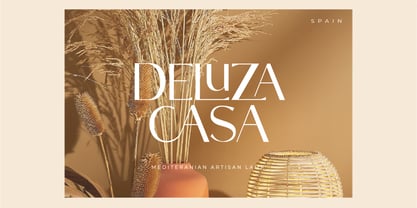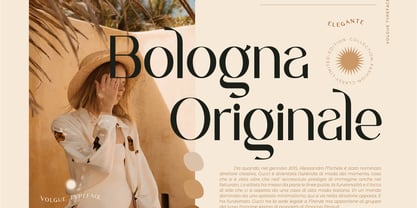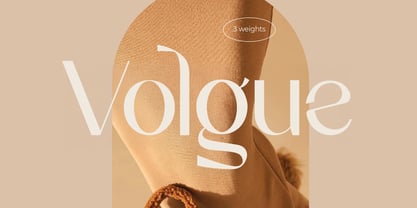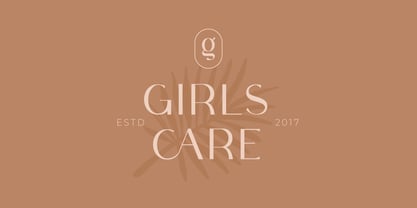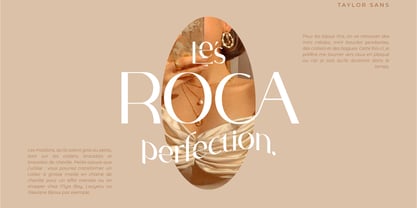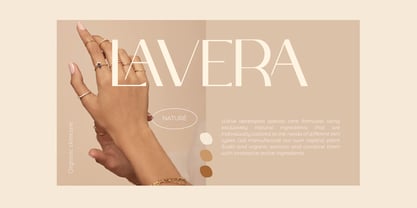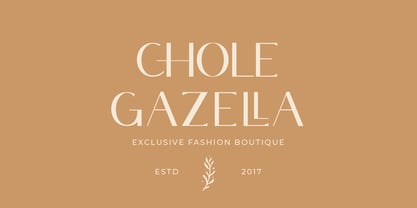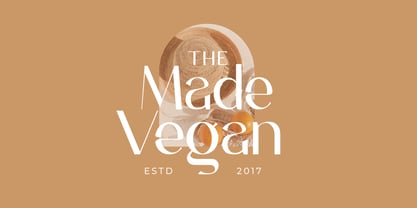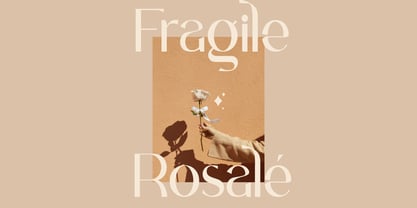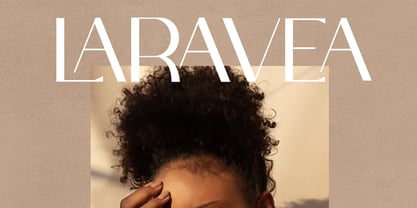
CCS Volgue
La famille de polices CCS Volgue a été conçue par Kurt Harahap et publiée par Creative Corner Studio. CCS Volgue contient 3 styles et options de package familial. En savoir plus sur cette famille
Volgue is a classic modern font that combines style and uniqueness, featuring smooth curves and exquisite ligatures. With a wealth of special alternative glyphs, ornamental designs, and multilingual support, this font is incredibly versatile. It performs exceptionally well in both large and small sizes, making it ideal for a variety of applications. Volgue is perfect for branding projects, logo design, clothing branding, product packaging, magazine headers, or as a chic text overlay on any background image. Enhance your designs with the distinctive character of Volgue, suitable for both digital and print media.